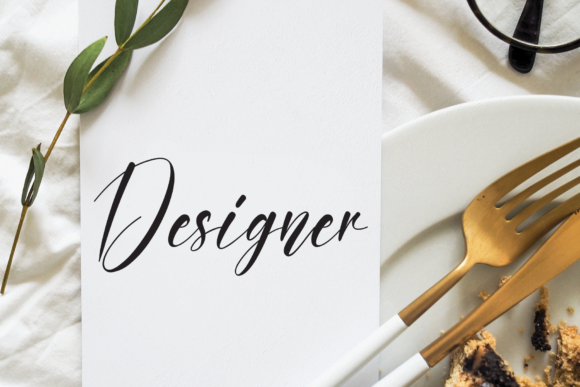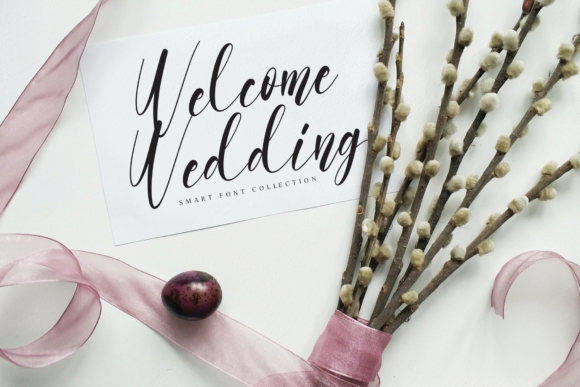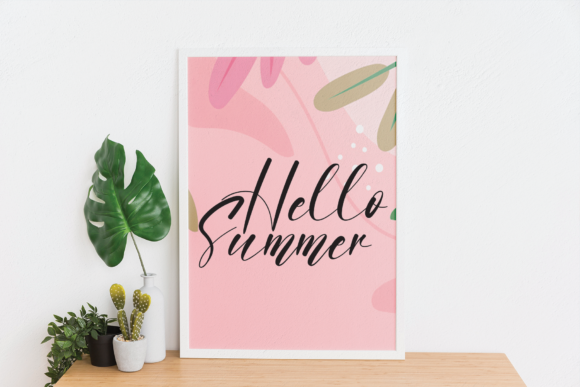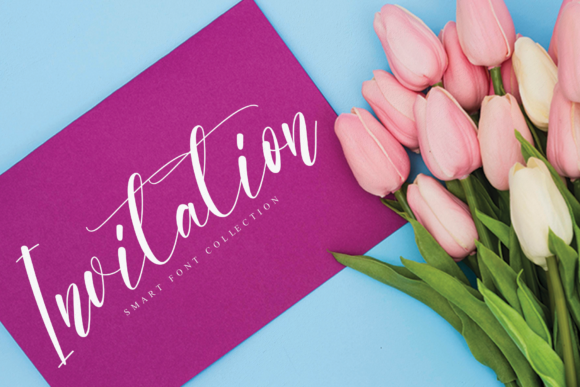
The Alivelove Font: A Beautiful Light Handwritten Font to Elevate Your Designs
Have you ever been in the middle of a design project, and suddenly, you just can’t seem to find the right font? I recall a particularly frustrating experience while working on a luxury branding project for a high-end jewelry client. The design needed a touch of elegance and sophistication, but every font I tried seemed to fall flat. That’s when I stumbled upon the Alivelove font, and it completely transformed my design. In this article, I’ll share my experience with this beautiful light handwritten font and provide a comprehensive guide on how to make the most of its stunning features.
A Personal Review: What I Love About Alivelove Font
The Alivelove font has been a game-changer for my designs. Here’s what I love about it:
- ✨ Unique feel: Alivelove has a distinct, handwritten quality that sets it apart from other fonts.
- ✅ Elegant and sophisticated: This font exudes luxury and refinement, making it perfect for high-end branding and design projects.
- 💫 Stunning impact: Alivelove adds a touch of magic to any design, making it stand out from the crowd.
While Alivelove is an exceptional font, there are a few minor quirks to be aware of:
- 🤔 Limited use in body text: Due to its elegant and cursive nature, Alivelove might not be the best choice for lengthy body text. It’s better suited for headings, titles, and short paragraphs.
- ⚠️ Requires attention to spacing: As with any script font, it’s essential to adjust the spacing to ensure optimal readability.
A Practical Guide to Using Alivelove Font
- Experiment with OpenType features, such as stylistic alternates and glyphs, to add more flair to your text.
The Designer Inspiration Behind Alivelove
Alivelove was designed with the intention of creating a beautiful, elegant font that would add a touch of sophistication to any design. The designer aimed to craft a font that would be both refined and unique, making it perfect for luxury branding and creative projects.
Q: What type of projects is Alivelove best suited for?
A: Alivelove is ideal for luxury branding, high-end design projects, and creative endeavors that require an elegant, sophisticated touch.
Q: Is Alivelove a difficult font to read?
A: Alivelove is a script font, and while it’s elegant and refined, it may require attention to spacing and sizing to ensure optimal readability.